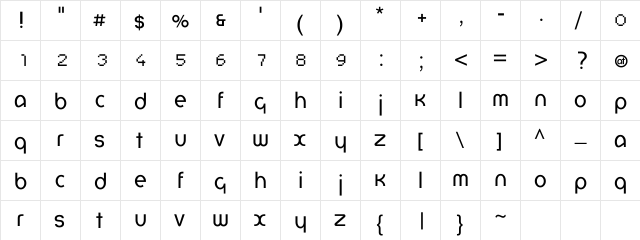
Lower Demo Regular Font Preview
Lower Demo Regular
Design Context for Lower Demo Typeface
Lower Demo offers clean, dependable letterforms without strong stylistic allegiance, making it a practical choice for designers who need flexibility.
Pro Tip: Pair Lower Demo with a font of contrasting weight or personality to build a more expressive typographic hierarchy.